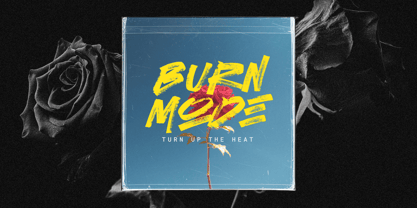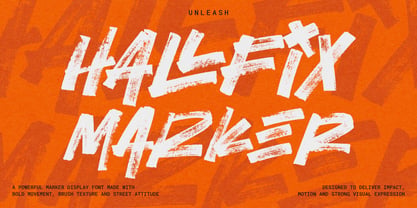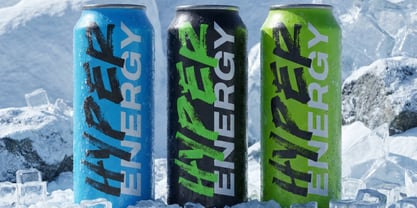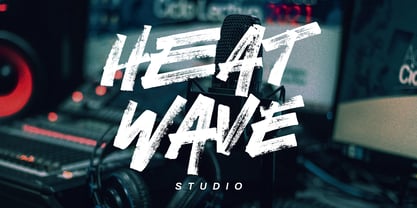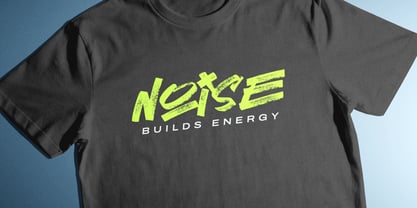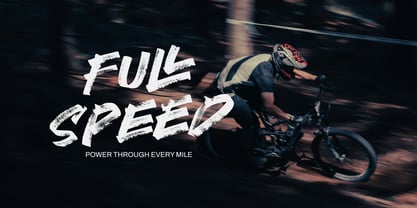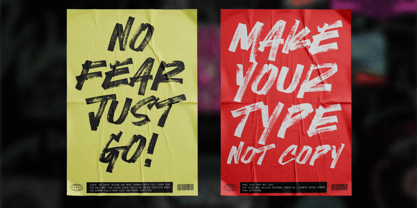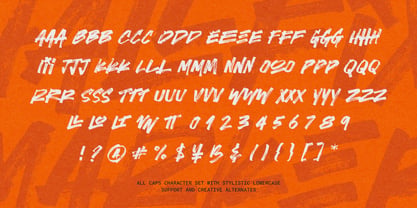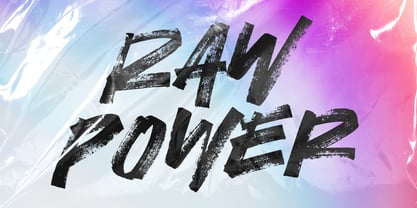
Hallfix Marker
Meet Hallfix Marker — a bold all-caps marker font built with raw energy, textured strokes, and an expressive handcrafted feel. Designed to capture the spirit of street culture, urban motion, and modern creative work, Hallfix Marker delivers a strong visual impact while staying clean and highly usable.
Created with authentic marker textures and dynamic brush movement, this typeface brings a natural handcrafted rhythm into every composition. The uppercase-driven design is supported with lowercase input, stylistic alternates, numbers, and punctuation, making it flexible for both bold headlines and creative branding projects.
Perfect for posters, apparel, packaging, album covers, sports branding, social media graphics, YouTube thumbnails, energy drink labels, streetwear visuals, and modern promotional design.
Features
All Caps Character Set
Lowercase Support
Creative Alternates
Numbers & Punctuation
Multilingual Support
Strong Brush Texture
Easy to Use
Perfect For
Streetwear Branding Sports & Cycling Design Poster & Artwork Packaging Design Urban Visual Projects Social Media Graphics Creative Headlines
Hallfix Marker was made for creators who want typography that feels loud, energetic, and full of personality — without losing professionalism and clarity.